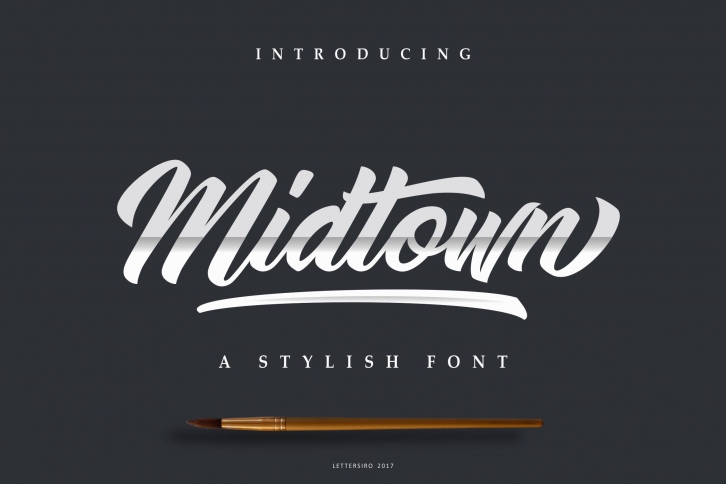
Midtown Stylish is a beautiful font that was designed by lettersiro co. It's a great choice for designers and creatives who need such a font. It was released on October 17, 2017 and the file size is 20.71 MB. Midtown Stylish may give a more youthful, expressive and casual look to your project. It is a very beautiful, refined, elegant, and high-quality font.